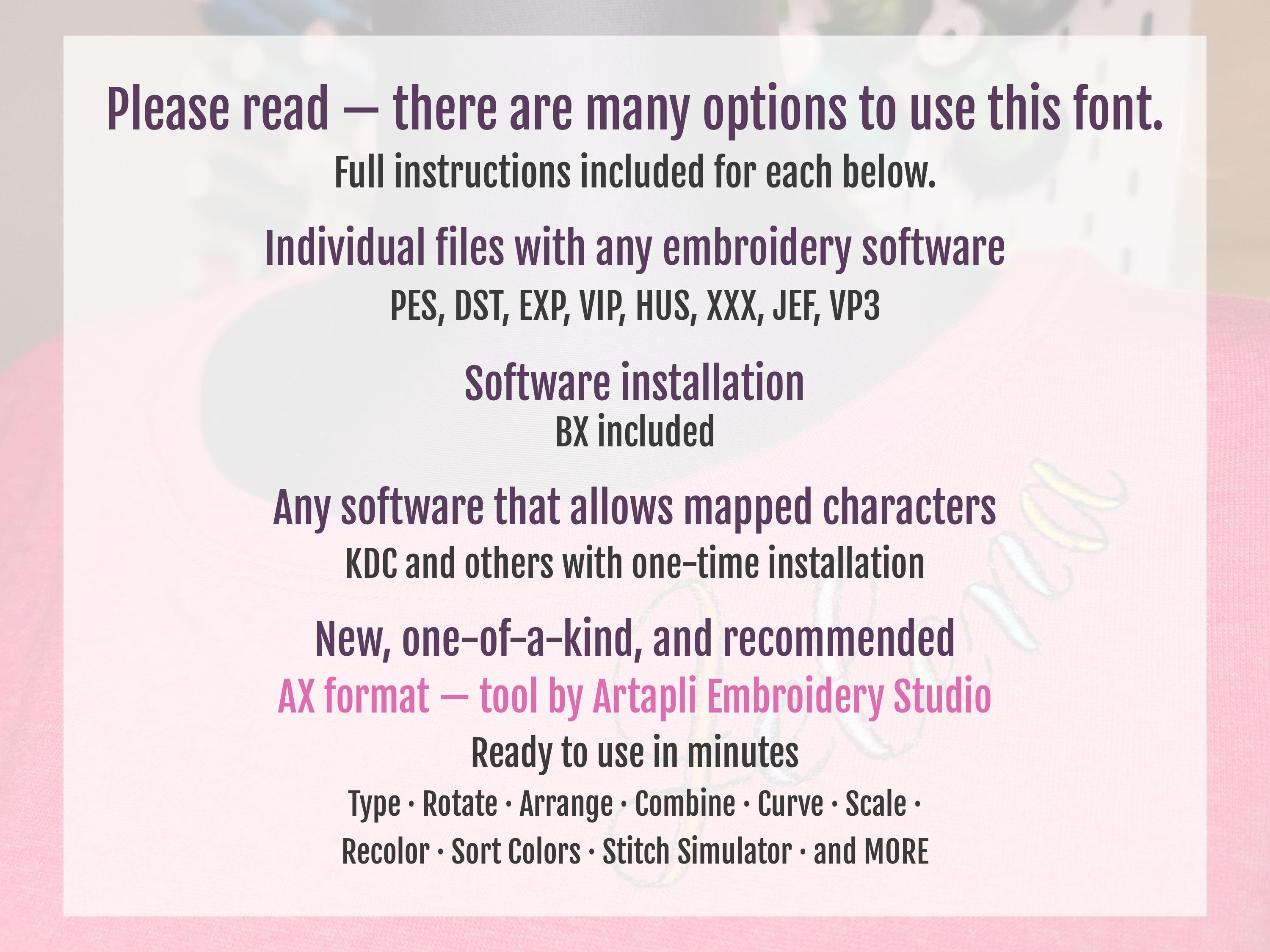
Quick Colorful Brush FONT machine embroidery designs in assorted mini sizes alphabet monogram name letters, playful kids name, BX included
Whole alphabet A-Z uppercase and lowercase letters, and punctuation . , &